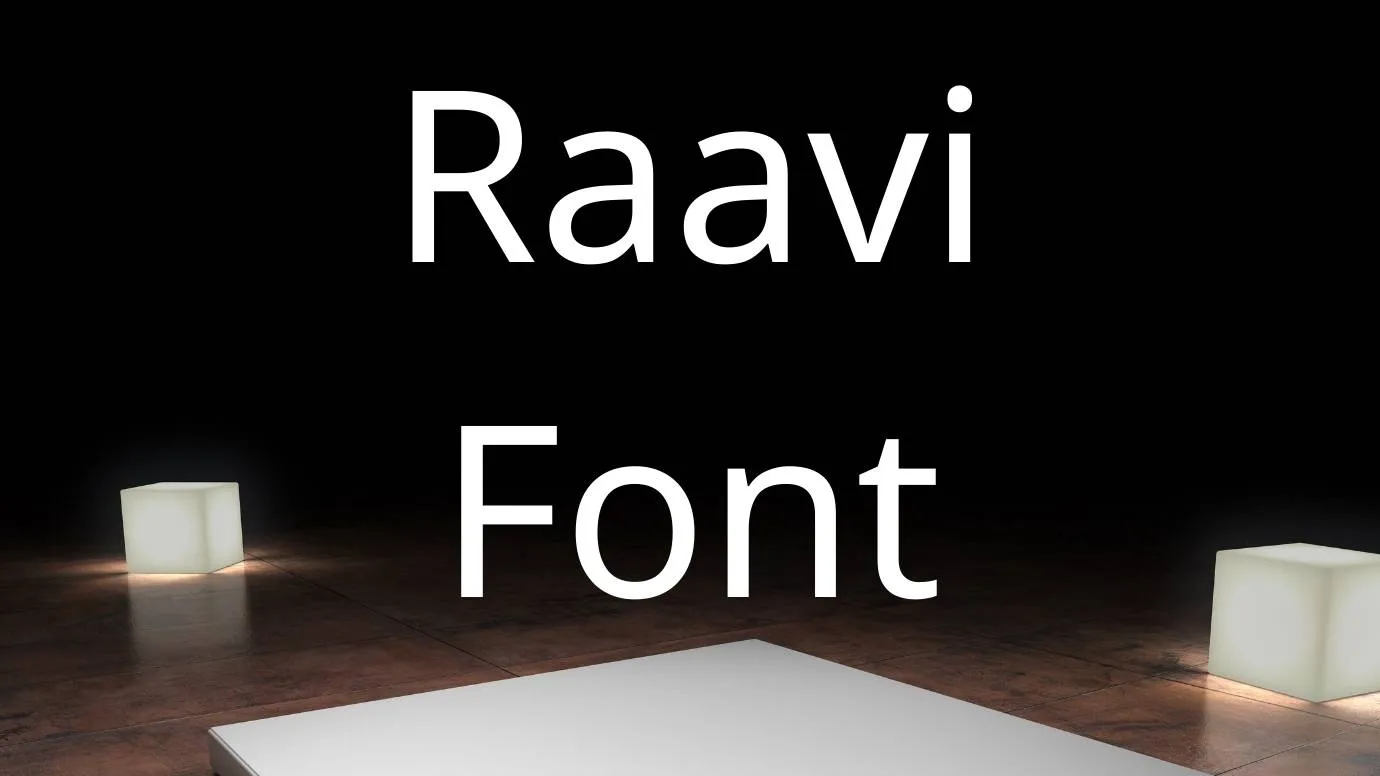
Raavi Font Family was crafted by the sophisticated designer, Raghunath Joshi. He spearheaded its development and gained immense popularity. This charming font is categorized under the Sans Serif typeface.
| Name | Raavi Font |
| Type | Sans-Serif |
| Designer | Raghunath Joshi |